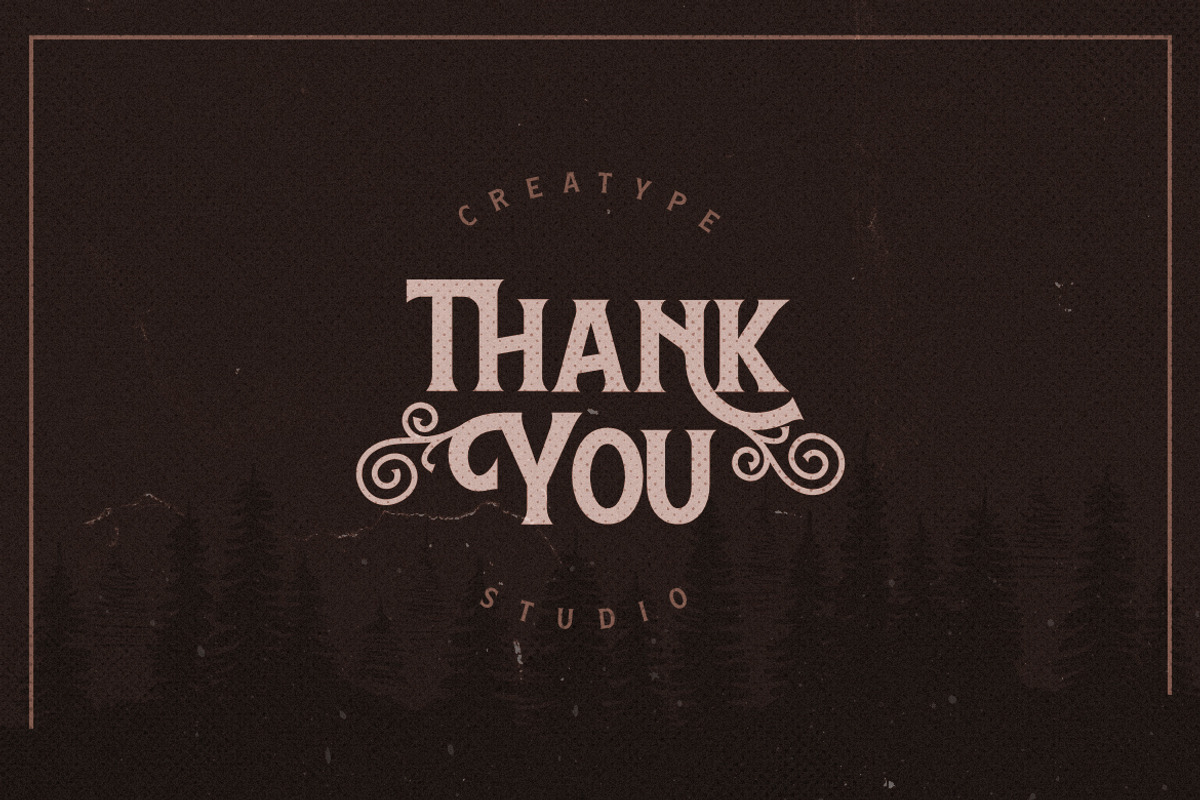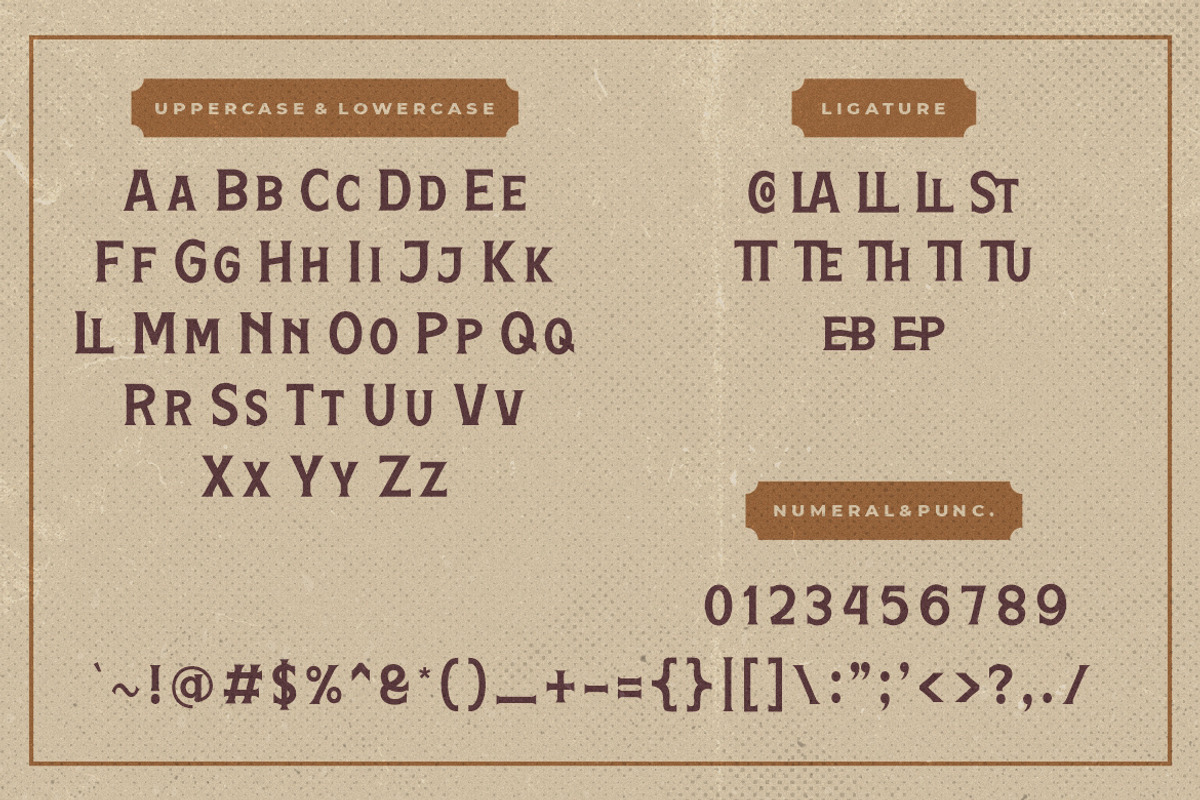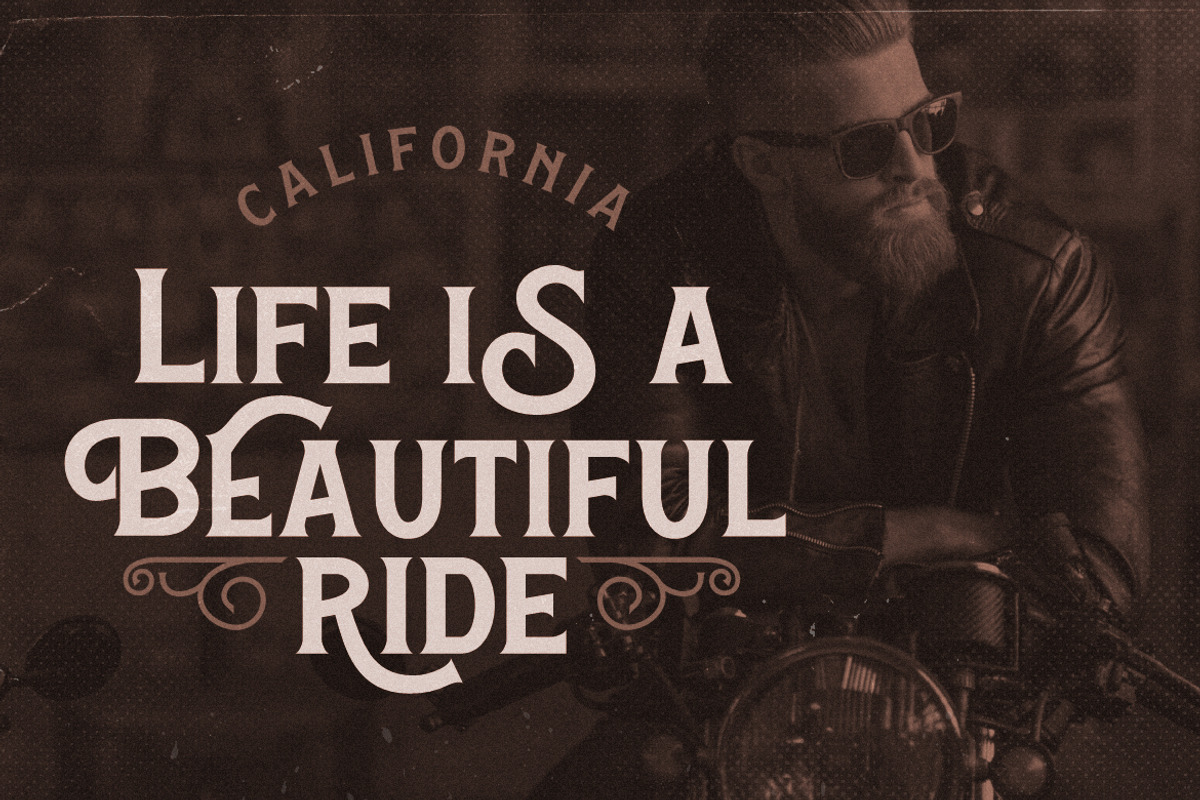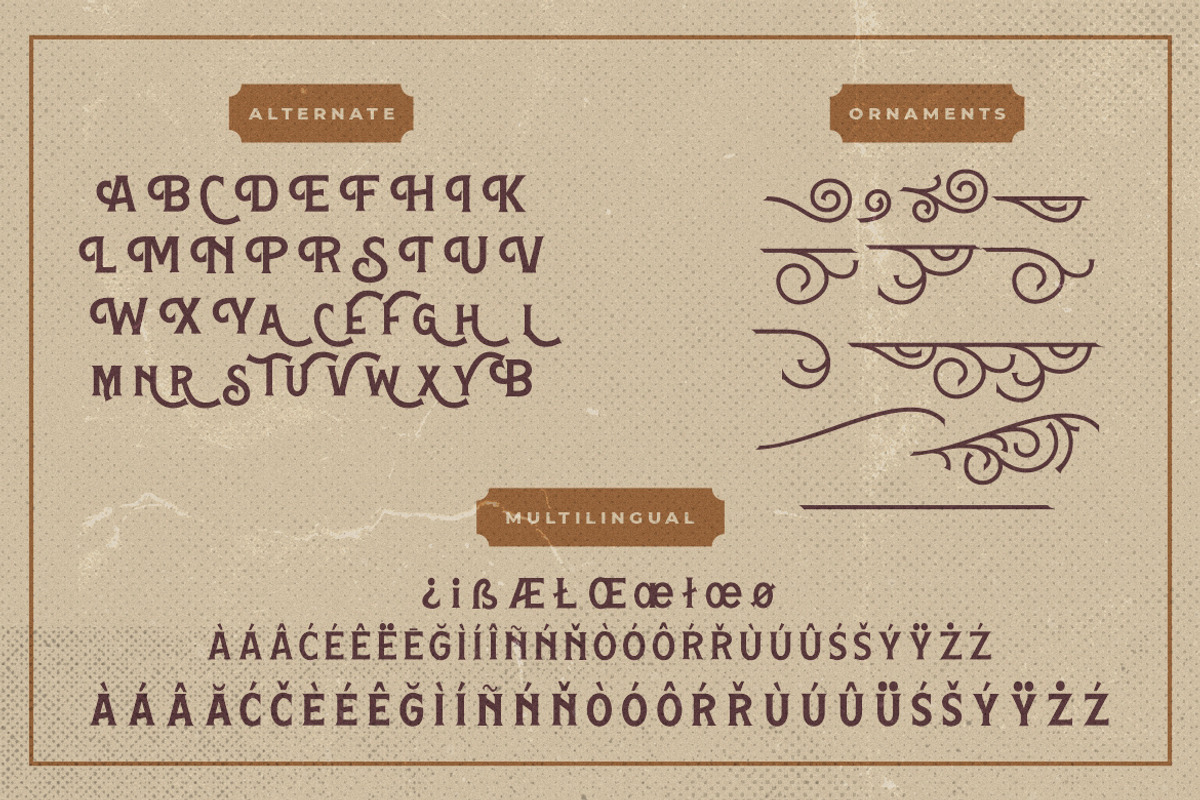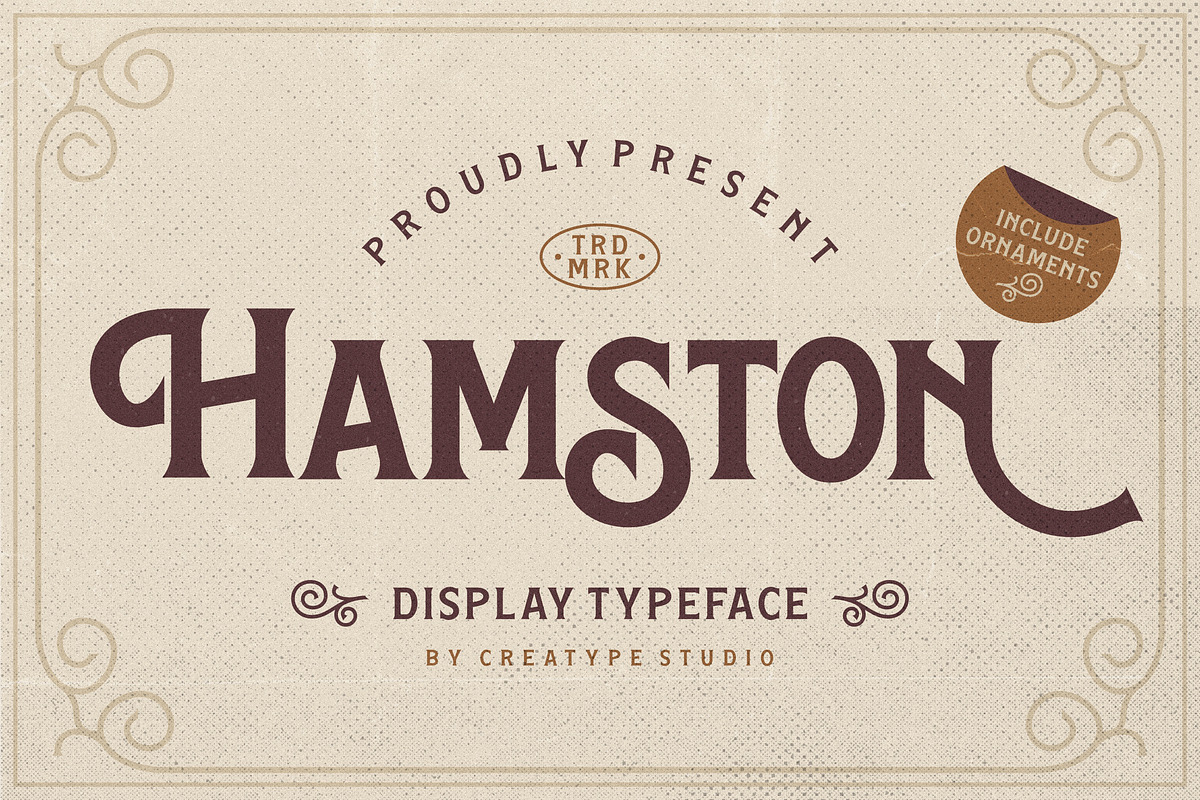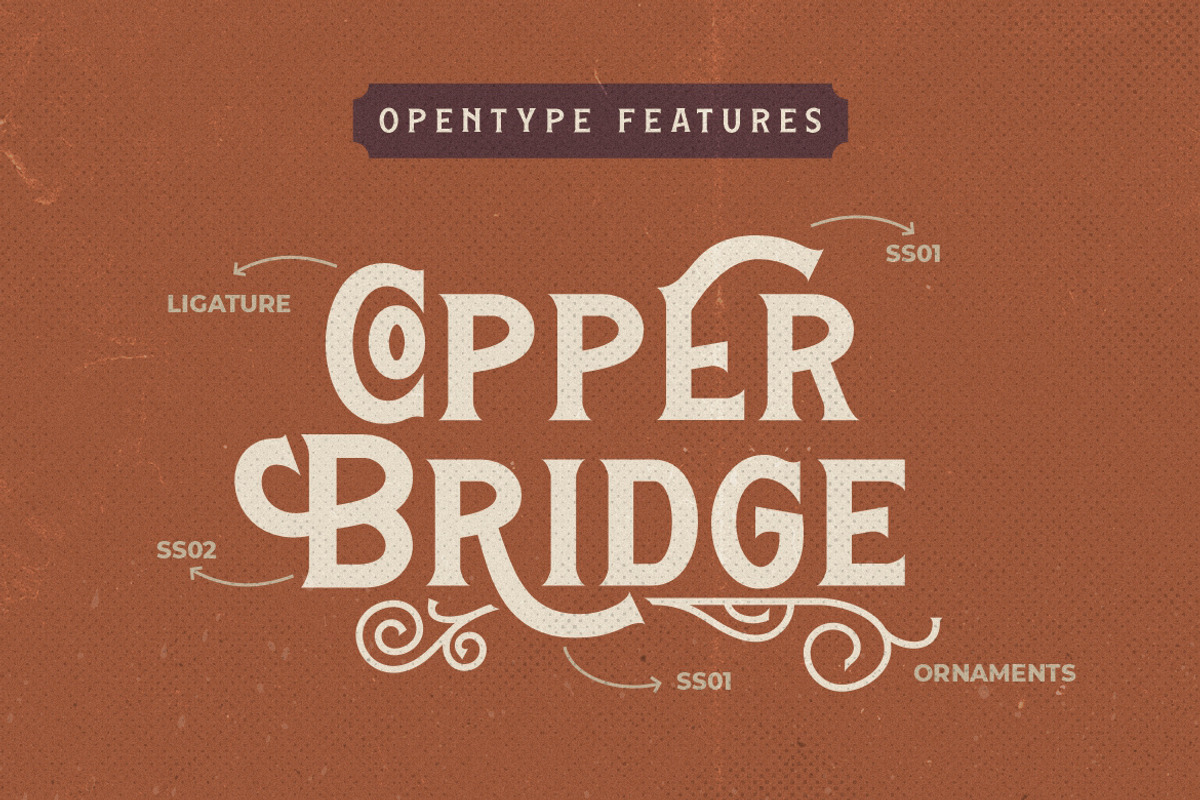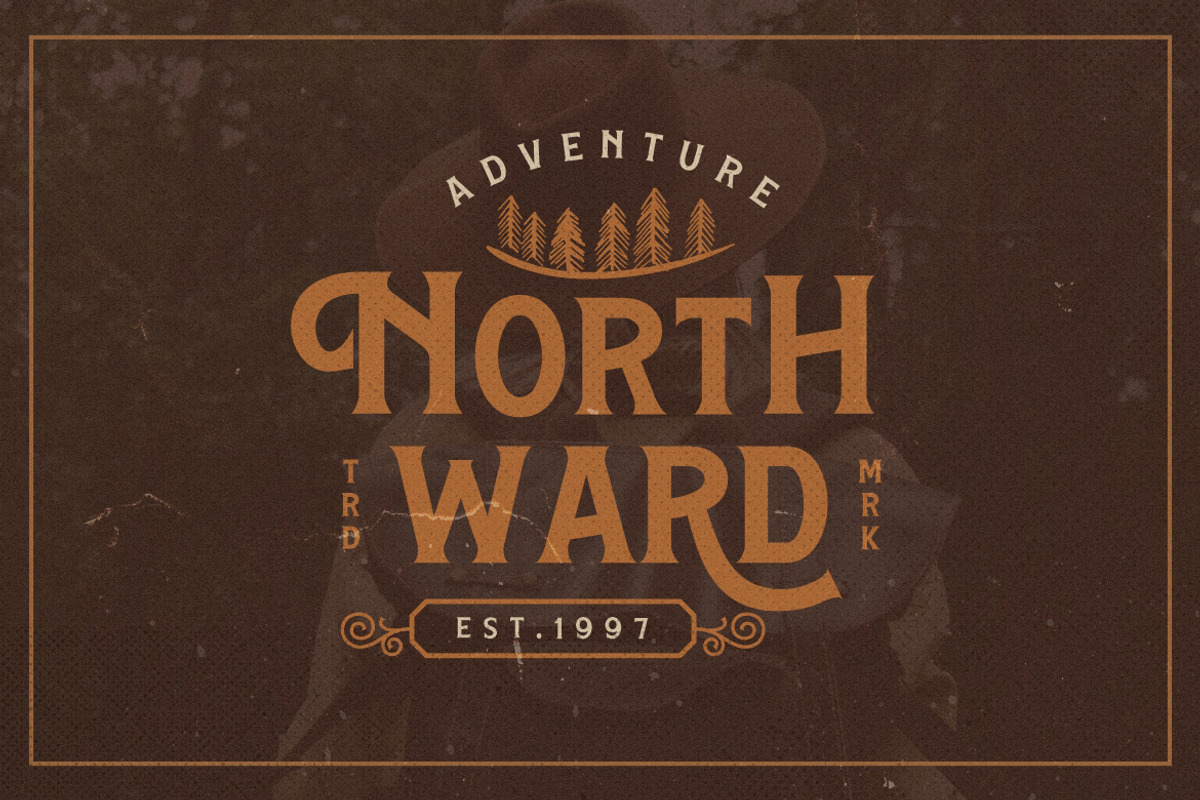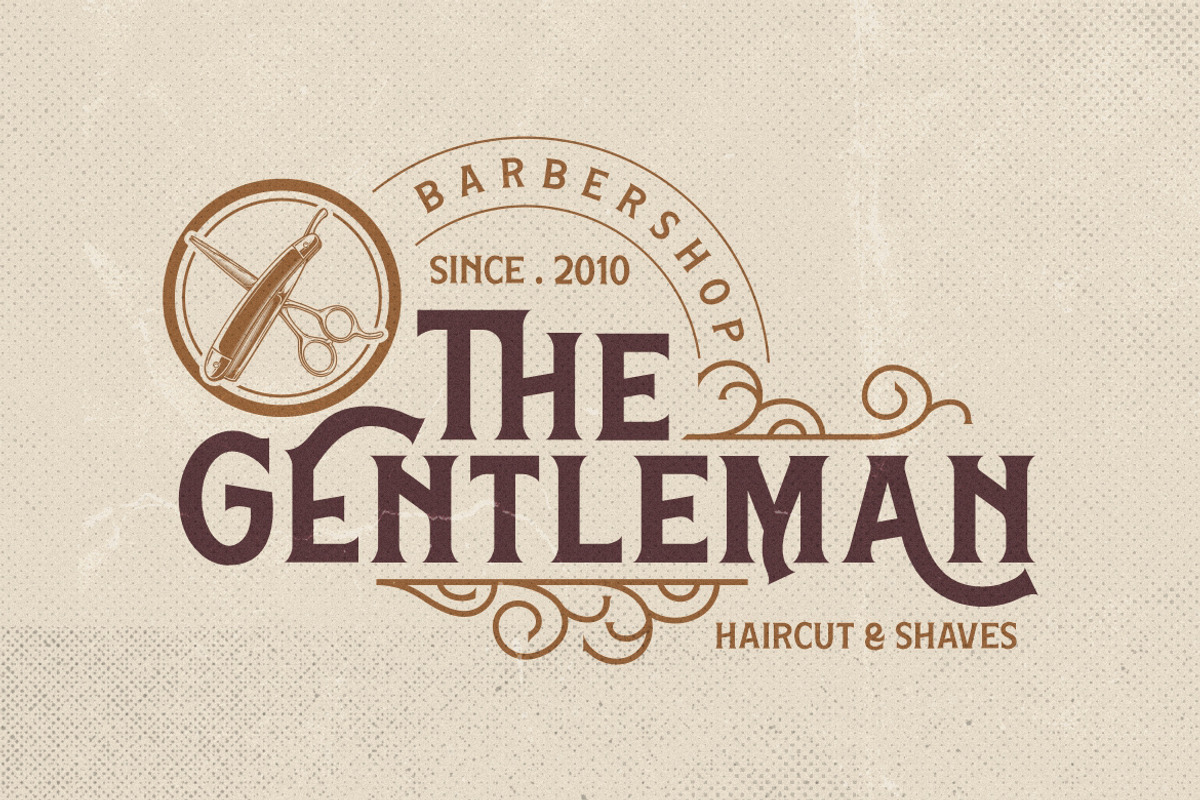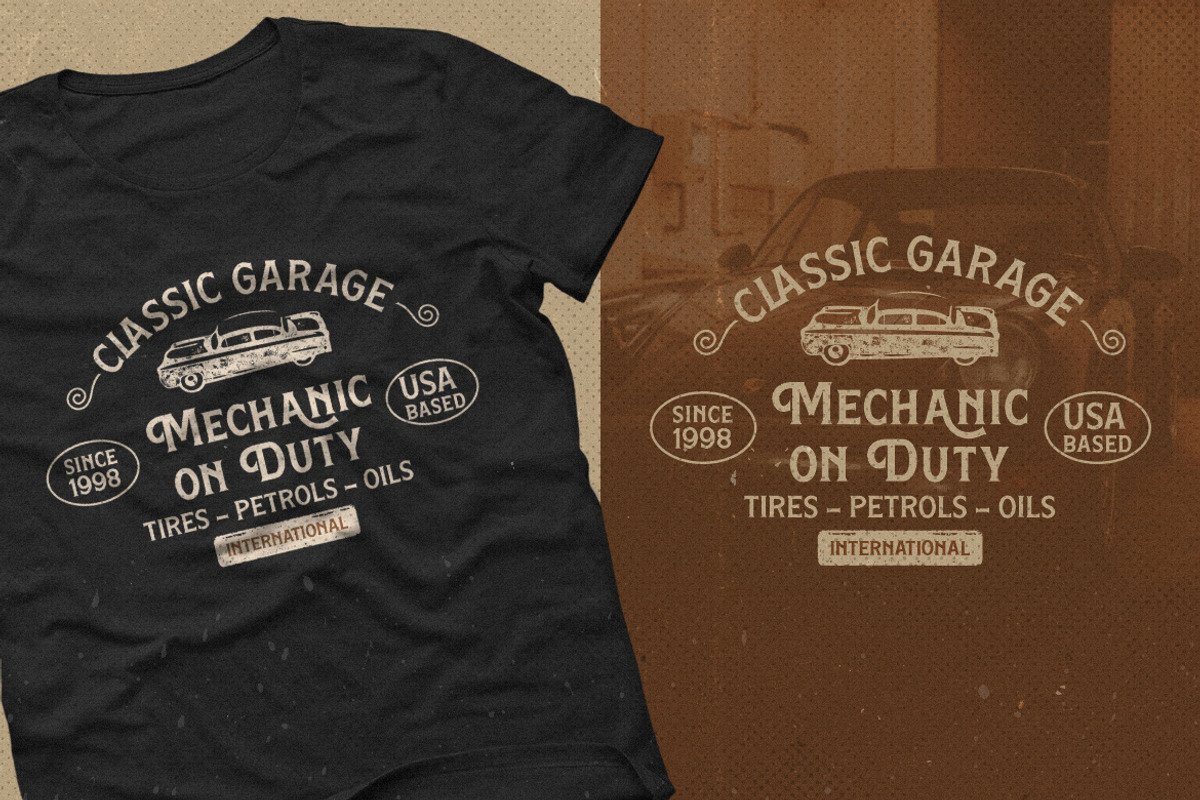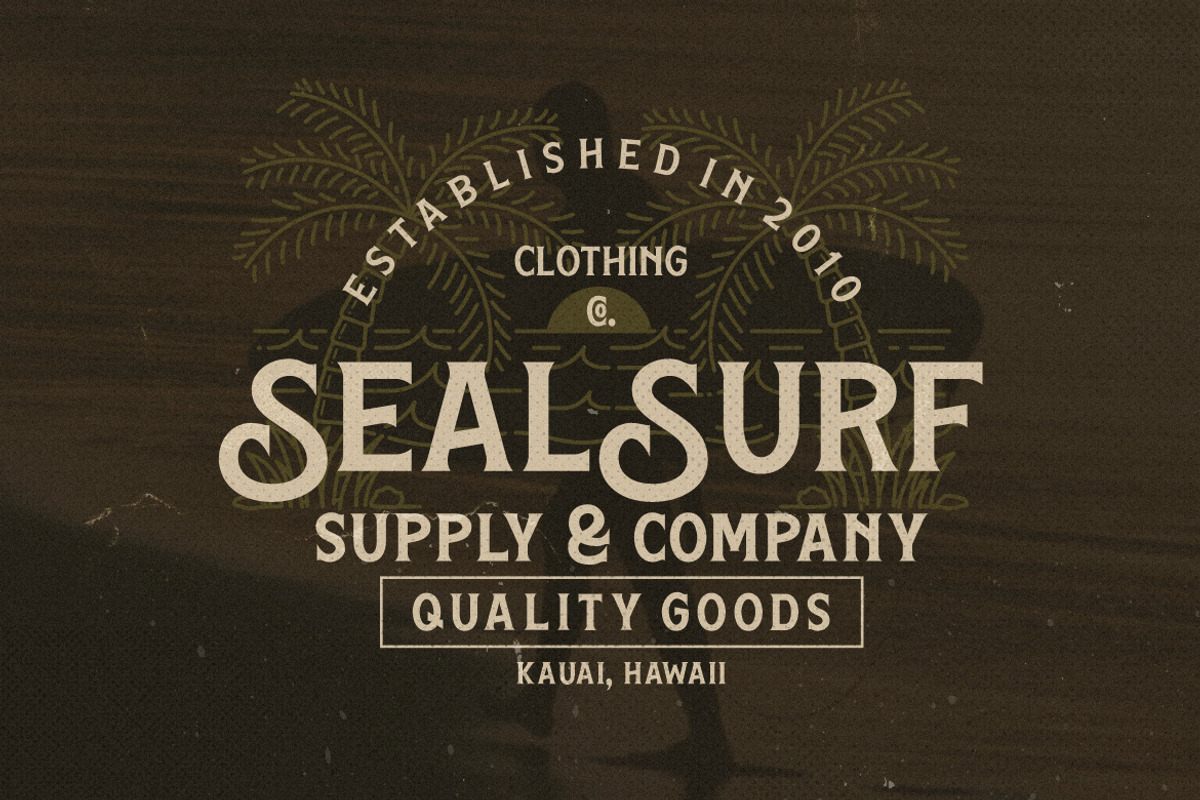
Hamston Display Vintage
Hamston A vintage display typeface with the touch of retro feel yet still looks luxury in a modern design concept. This typeface has unique looks and strong character with its ornament swashes. It will perfect for your creative project.
Hamston is perfect for branding projects, logo, wedding designs, social media posts, advertisements, product packaging, product designs, label, photography, watermark, invitation, stationery and any projects that need handwriting taste.
- Ligature, Alternate & Swashes